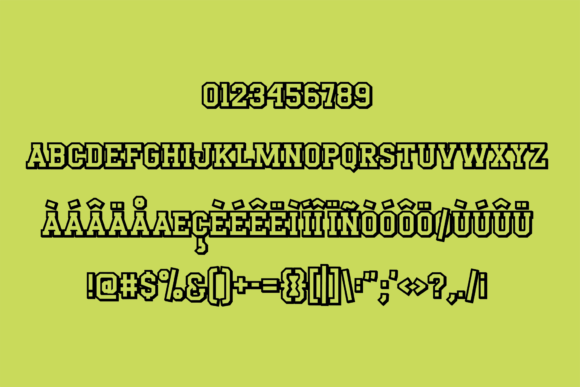
Introduction to Coach Font
Introducing Coach Font, a sleek and bold serif font designed to make a statement.
Its thick, blocky letterforms paired with a subtle drop shadow give your headlines a strong and modern feel Ideal for sports-themed designs, this font adds an impactful, contemporary edge to any project.